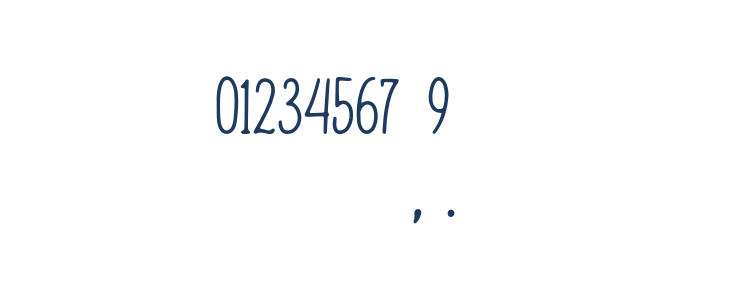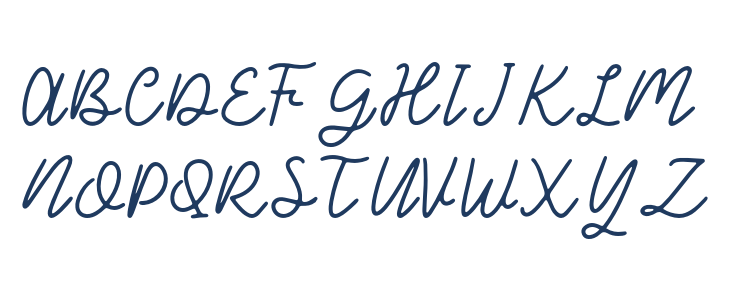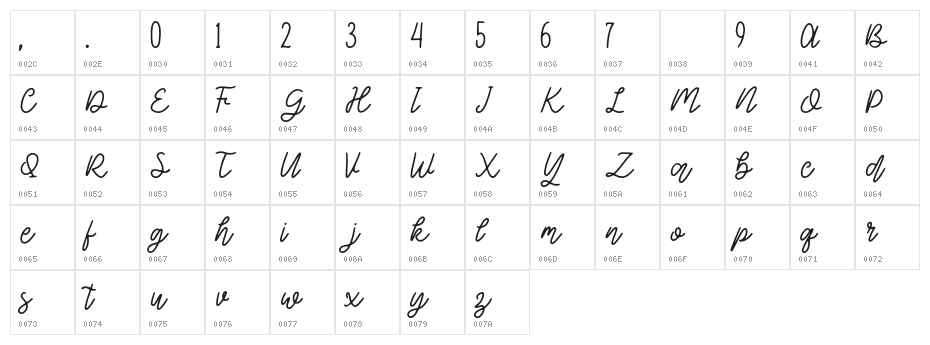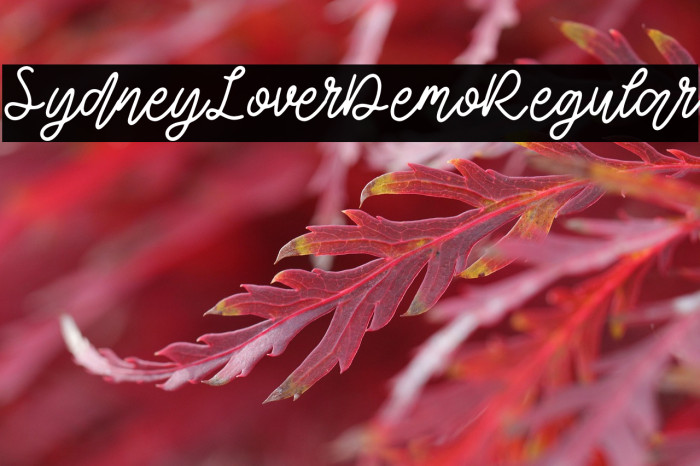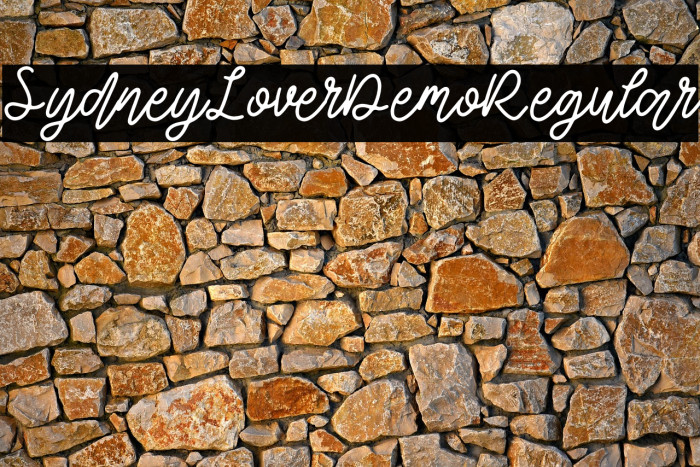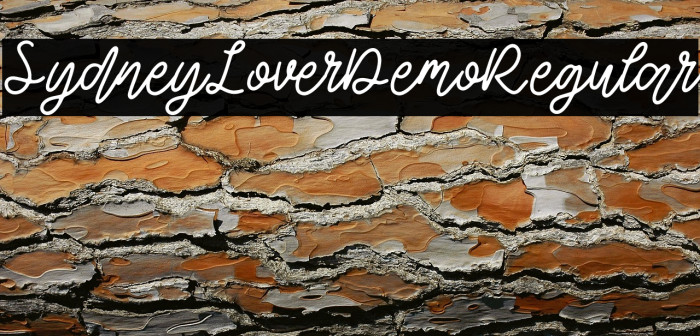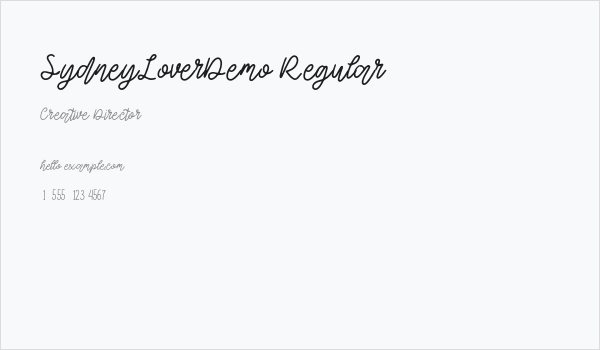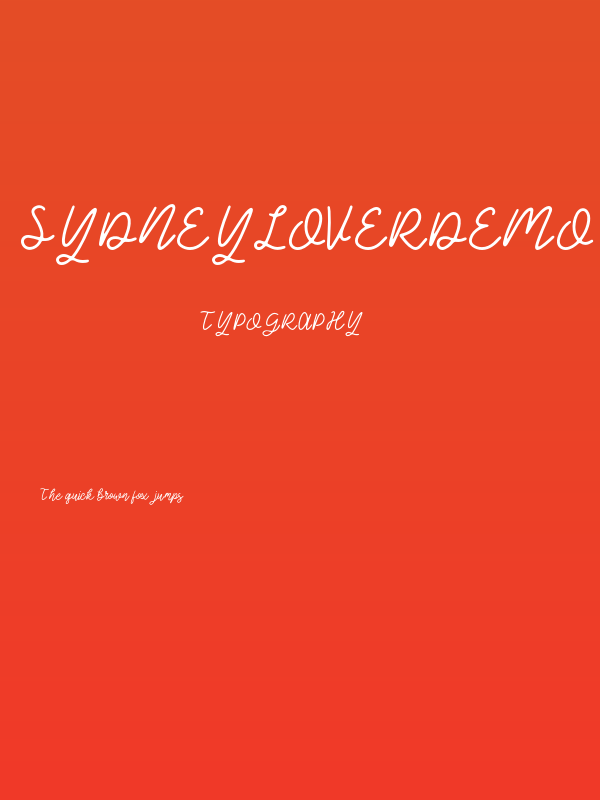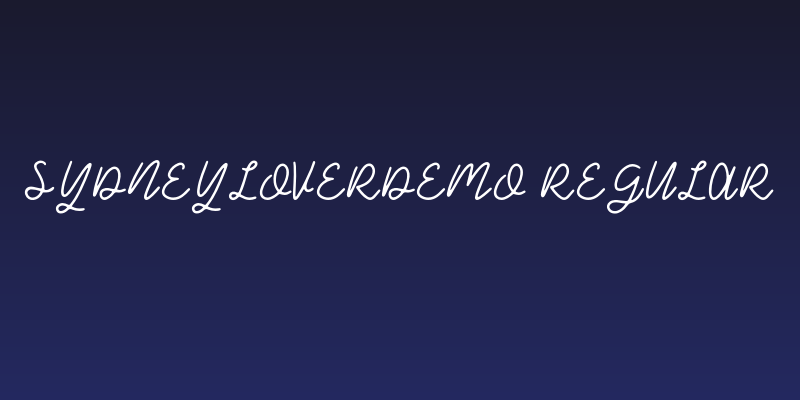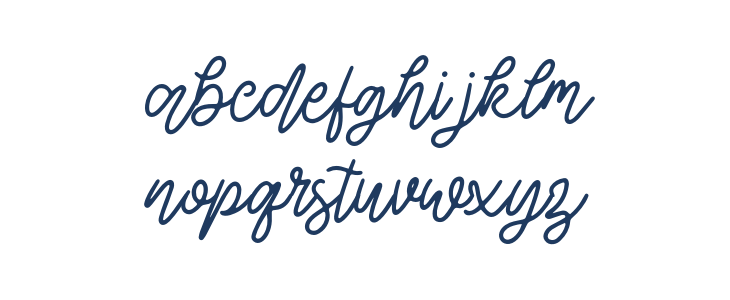
SydneyLoverDemo-Regular Font
SydneyLoverDemo-Regular Description
A casual, handwritten script font with smooth, flowing strokes and a slightly playful character. The uppercase letters are more upright and spaced, while the lowercase letters have a connected, cursive style. Numbers are tall and narrow with consistent stroke weight.
| Overall Style | Casual, friendly, and informal |
| Use Case | Invitations, logos, headlines, and decorative text |
| Proposed Projects | Invitations, greeting cards, personal branding, social media graphics, and informal headlines. |